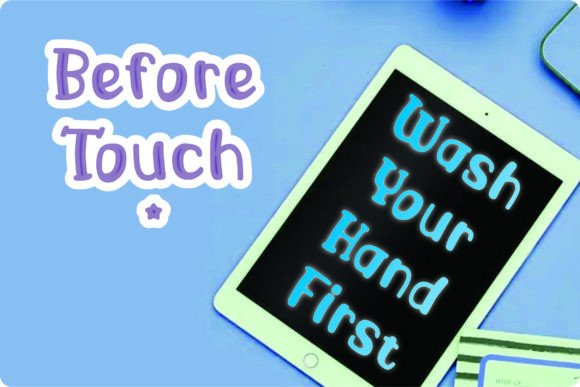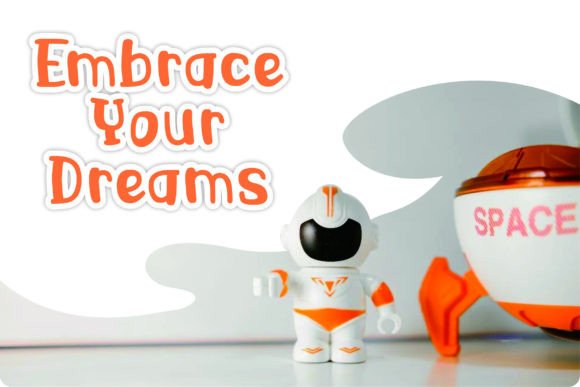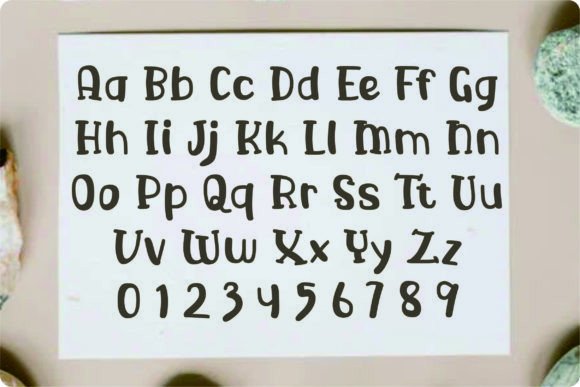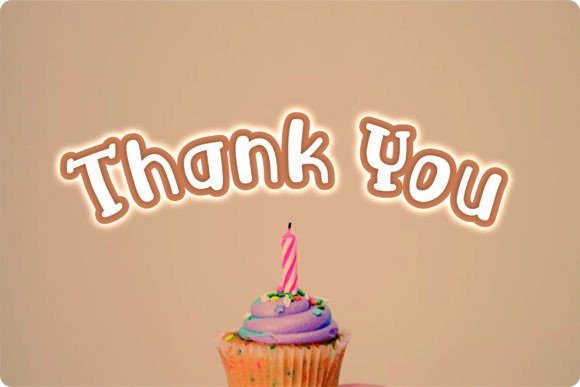
The Joy of Children Playing Font: A Designer’s Delight
I’ll never forget the time I was working on a birthday party project for my niece. I had all the elements in place – the colors, the graphics, the layout – but something was missing. It wasn’t until I stumbled upon the Children Playing font that the entire design came together. The playful, handwritten curves and lines added a touch of whimsy and fun that perfectly captured the essence of a child’s birthday celebration.
So, what makes Children Playing font so special? Here are a few things I love:
- ✨ Cuteness overload: This font is undeniably cute, with a unique blend of playfulness and beauty that adds a touch of personality to any design.
- ✅ Versatility: Whether you’re working on a greeting card, a wedding invitation, or a craft project, Children Playing font fits right in.
- 💕 Emotional connection: The handwritten feel of this font creates an intimate and emotional connection with the reader, making it perfect for special occasions.
Of course, no font is perfect, and Children Playing has a few minor quirks:
- 🤔 Limited character set: While the font has a wide range of characters, it’s not a full Unicode font, so you may encounter some limitations when using non-English characters.
- ⚠️ Not suitable for body text: Due to its playful nature, Children Playing font is best used for headings, titles, and short paragraphs, rather than large blocks of body text.
One of the best things about Children Playing font is its support for OpenType features and glyphs. These features allow you to add an extra layer of creativity and customization to your designs.
Some of the OpenType features you can expect to find in Children Playing font include:
- Stylistic alternates: These allow you to switch between different font styles, such as italic or bold.
- Ligatures: These combine two or more characters into a single glyph, creating a more cohesive look.
- Swashes: These add a decorative touch to your text, perfect for headings and titles.
The Story Behind Children Playing Font
The story behind Children Playing font is one of creativity and inspiration. According to the font’s designer, the goal was to create a font that captured the joy and playfulness of childhood. The result is a font that’s both beautiful and fun, perfect for adding a touch of personality to your designs.
| Is Children Playing font suitable for body text? | No, Children Playing font is best used for headings, titles, and short paragraphs, rather than large blocks of body text. |